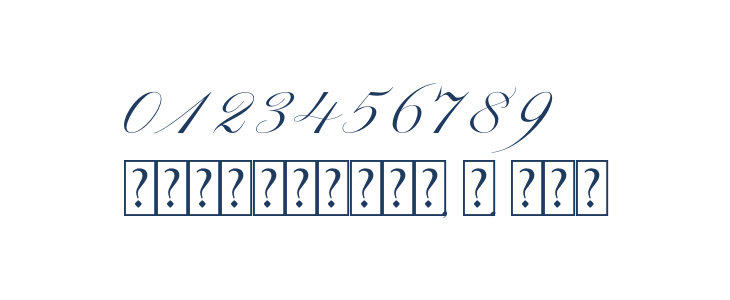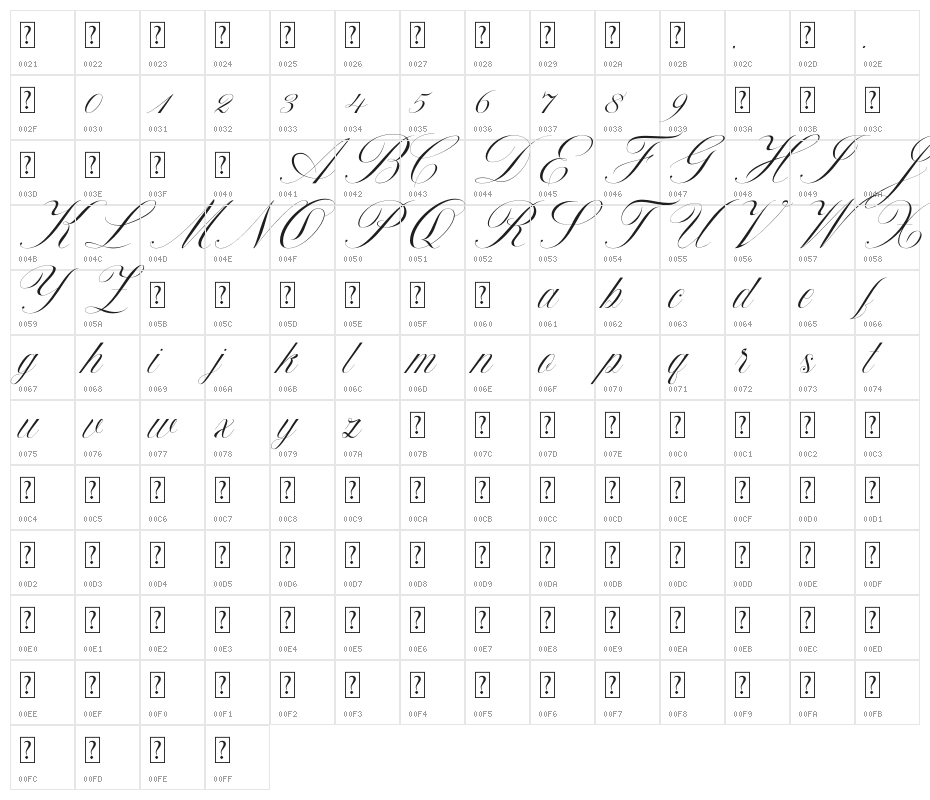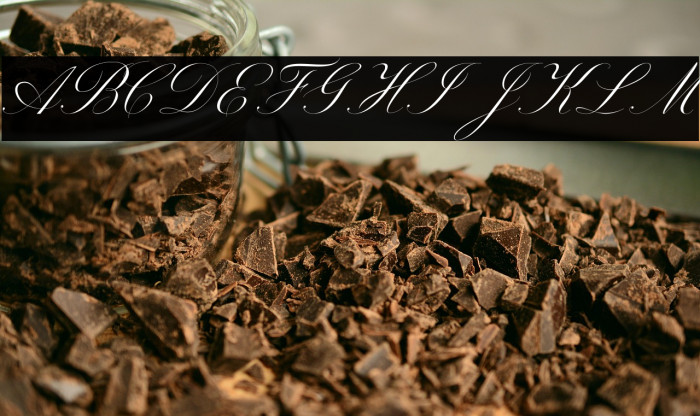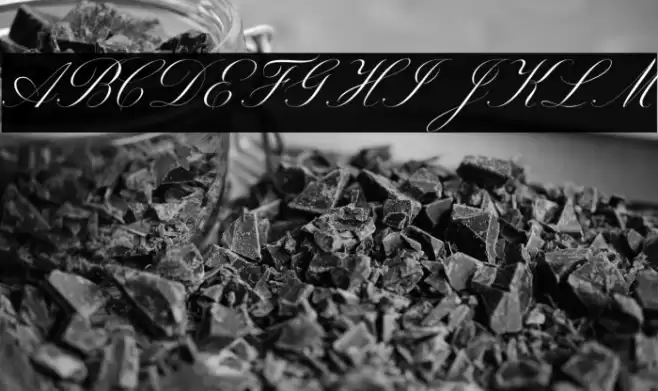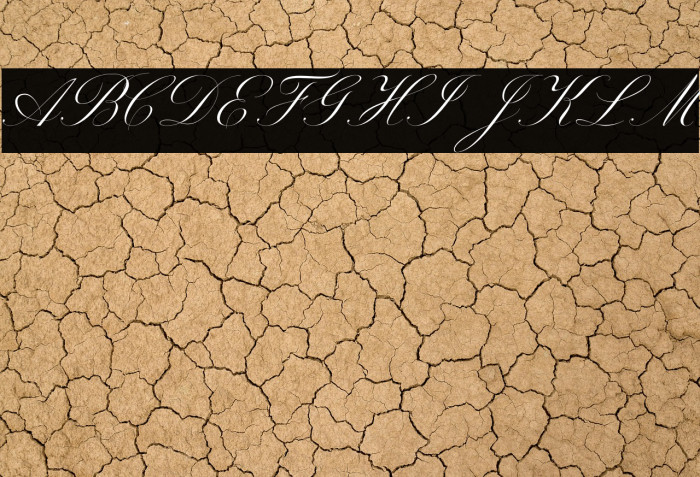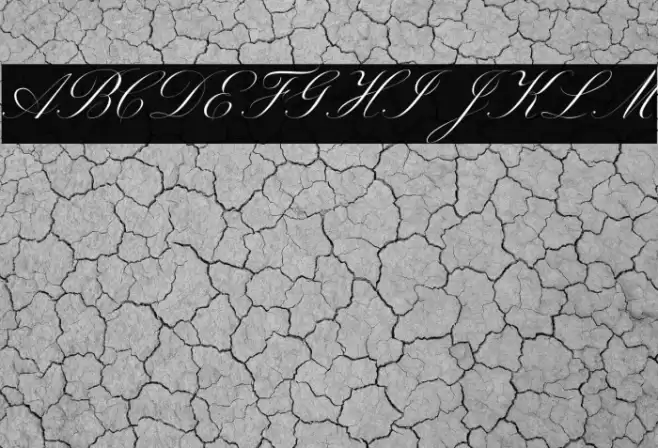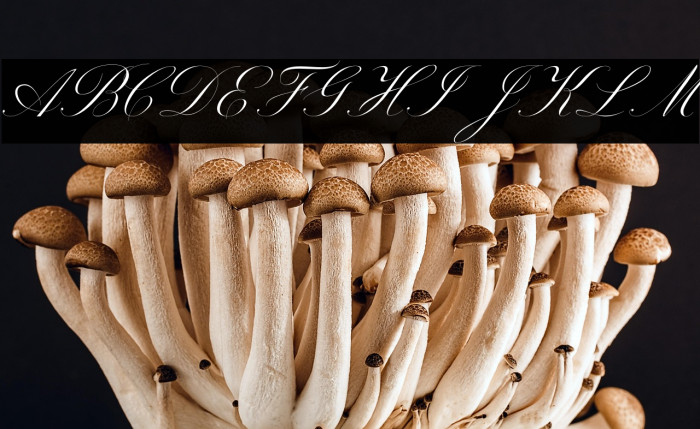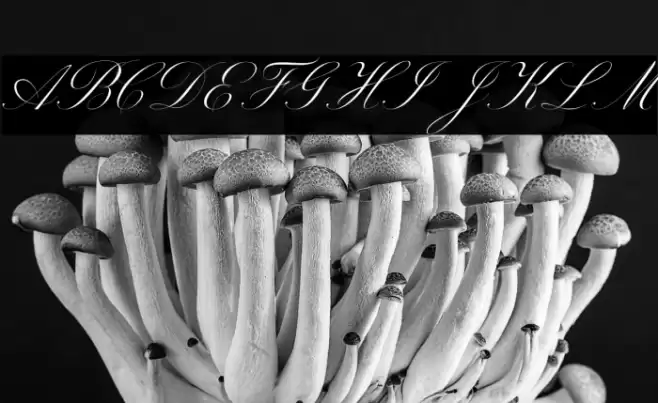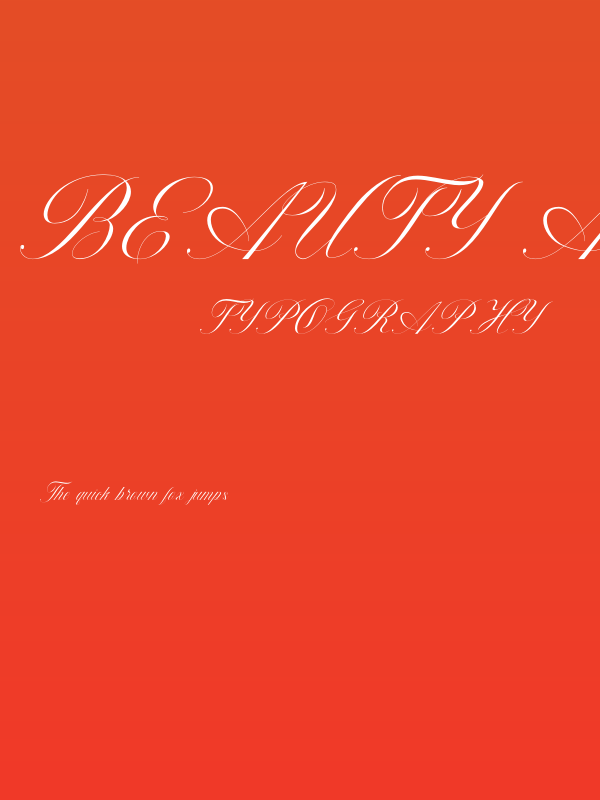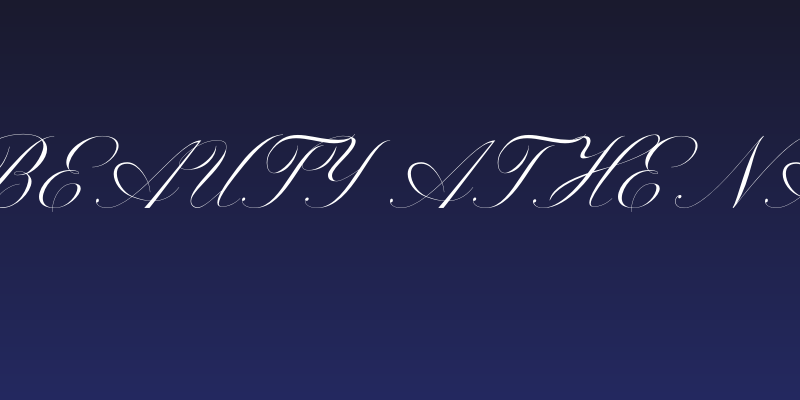
Beauty Athena Font
Beauty Athena Description
This elegant script font features a sophisticated and flowing design, characterized by its graceful curves and delicate strokes. The uppercase letters are ornate, with sweeping flourishes that add a touch of luxury and refinement. The lowercase letters maintain a smooth and consistent flow, making the font highly legible despite its decorative nature. The numerals are styled to match the elegance of the alphabet, ensuring a cohesive look across all characters. This font is perfect for projects that require a touch of class and sophistication, such as wedding invitations, formal event programs, or luxury brand logos.
| Overall Style | Elegant, Sophisticated |
| Use Case | Logos, Invitations, Formal Documents |
| Proposed Projects | Ideal for wedding invitations, luxury brand logos, formal event programs, and elegant stationery. |